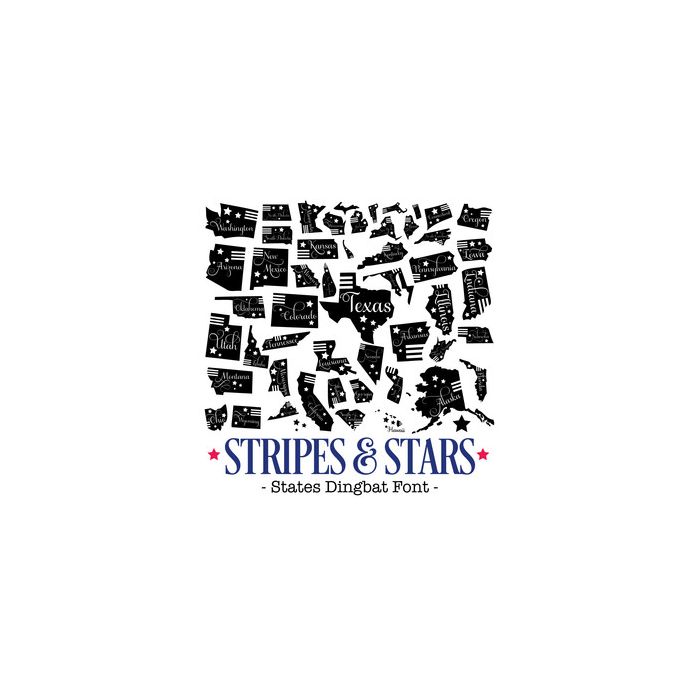
Stripes & Stars American States Dingbat Font. Contains all 50 states with names in fancy brush lettering, perfect for travel journals, scrapbooking, card making and more! All are allocated to upper and lower case and can be accessed via glyphs. My other fonts can be found in the Silhouette store. For more design ideas, coordinating designs & products and inspiration, please visit my blog http://www.sarahhurleyblog.com